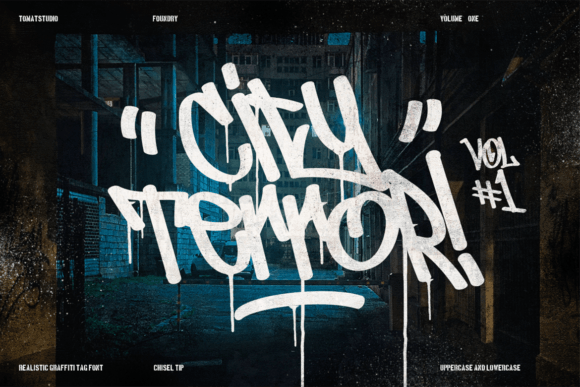
Introducing City Terror Font: A Realistic Graffiti Tag Font with a Polite Twist
For all you graffiti enthusiasts and font collectors out there, we’ve got some exciting news to share. We’ve just created a new, realistic graffiti tag font that’s a bit more polite than our previous offerings. Say hello to City Terror Font, a hand-drawn font that’s perfect for adding a touch of urban flair to your designs.
What Sets City Terror Font Apart
- Uppercase and Lowercase Letters: Unlike some of our other fonts, City Terror Font features both uppercase and lowercase letters, making it more versatile and easier to use.
- Hand-Drawn with Wacom: To achieve a truly realistic look, we created City Terror Font using a Wacom tablet. This allowed us to capture the nuances of hand-drawn graffiti, giving the font a authentic feel.
- Tight Kerning and Spacing: In the real graffiti scene, tags are often crowded and tight. We’ve adjusted the kerning and spacing in City Terror Font to reflect this, creating a more immersive and realistic look.
The Inspiration Behind City Terror Font
As a team, we’ve always been fascinated by the world of graffiti. There’s something about the raw energy and creativity of street art that inspires us to push the boundaries of typography. With City Terror Font, we wanted to capture the essence of graffiti while still making it accessible to designers and artists.
Our experiences exploring the streets and alleys of urban landscapes have taught us that graffiti is all about attitude and style. A good graffiti tag can convey a sense of confidence and swagger, but it can also be beautiful and elegant. With City Terror Font, we’ve aimed to strike a balance between these two extremes, creating a font that’s both tough and refined.
Tips for Using City Terror Font
To get the most out of City Terror Font, here are a few tips to keep in mind:
- Experiment with Different Sizes: City Terror Font looks great in a variety of sizes, from small and delicate to large and bold. Don’t be afraid to experiment and see what works best for your design.
- Mix and Match: City Terror Font is perfect for combining with other fonts and design elements. Try pairing it with a clean sans-serif font for a striking contrast.
The Importance of Realism and Authenticity
When creating City Terror Font, we knew that realism and authenticity were key. We didn’t want to create just another generic graffiti font; we wanted to capture the spirit of the real thing. By using a Wacom tablet to draw the font, we were able to achieve a level of nuance and detail that’s hard to replicate with digital fonts.
But what really sets City Terror Font apart is its roots in the real graffiti scene. We’ve spent countless hours exploring urban landscapes, talking to graffiti artists, and soaking up the atmosphere. This experience has informed every aspect of the font, from the tight kerning and spacing to the subtle imperfections and quirks.
The Polite Graffiti Revolution
When we say that City Terror Font is more polite than our other fonts, what do we mean? For us, “polite” refers to a font that’s still edgy and urban, but also refined and elegant. We’ve achieved this by balancing bold, expressive letterforms with a more restrained approach to design.
The result is a font that’s perfect for designers who want to add a touch of graffiti flair to their work without going over the top. City Terror Font is ideal for projects that require a bit of attitude and swagger, but still need to be professional and polished.
In conclusion, City Terror Font is a game-changer for anyone looking to add a touch of graffiti realism to their designs. With its hand-drawn letterforms, tight kerning and spacing, and polished aesthetic, this font is perfect for designers and artists who want to push the boundaries of typography.